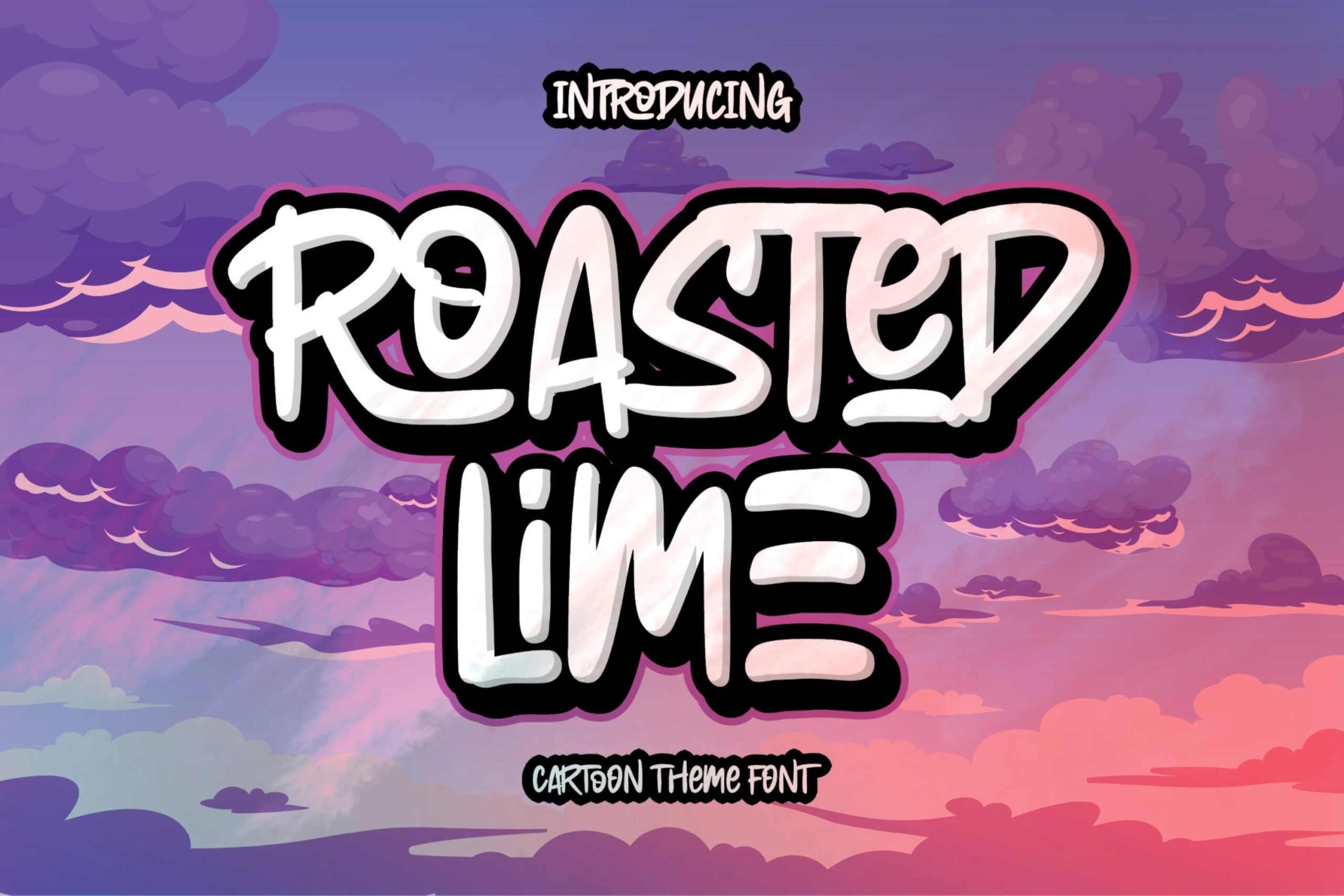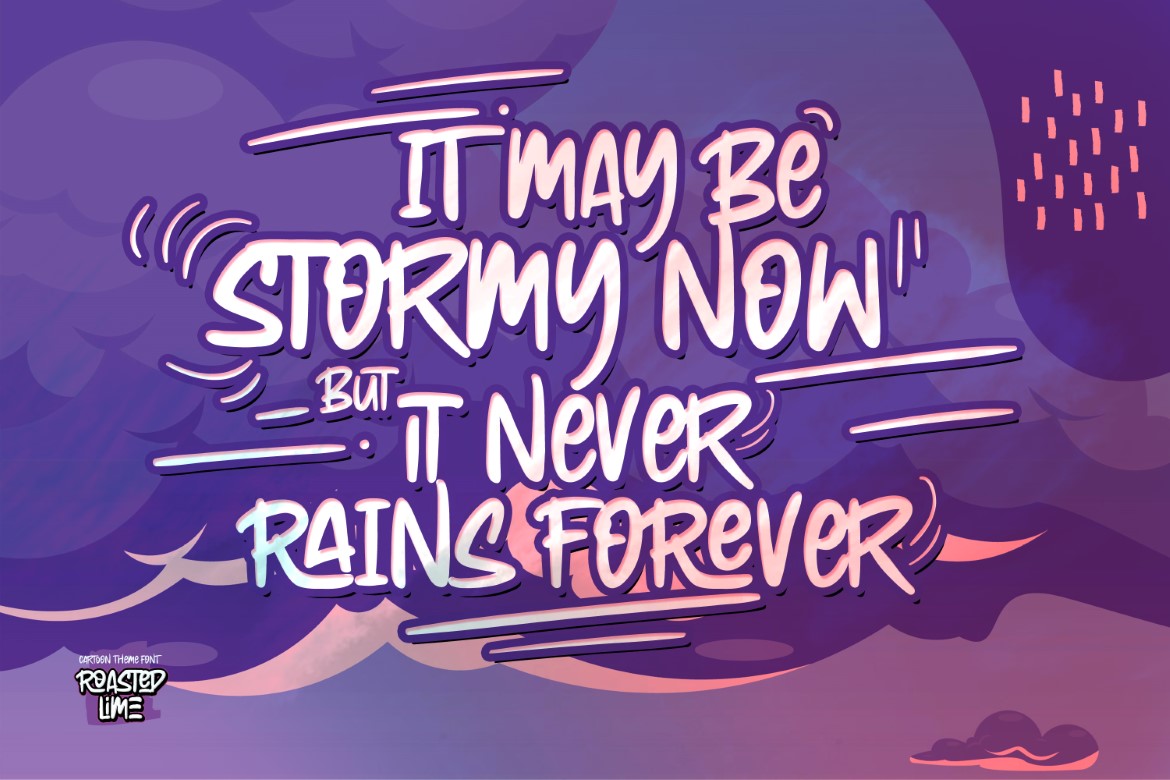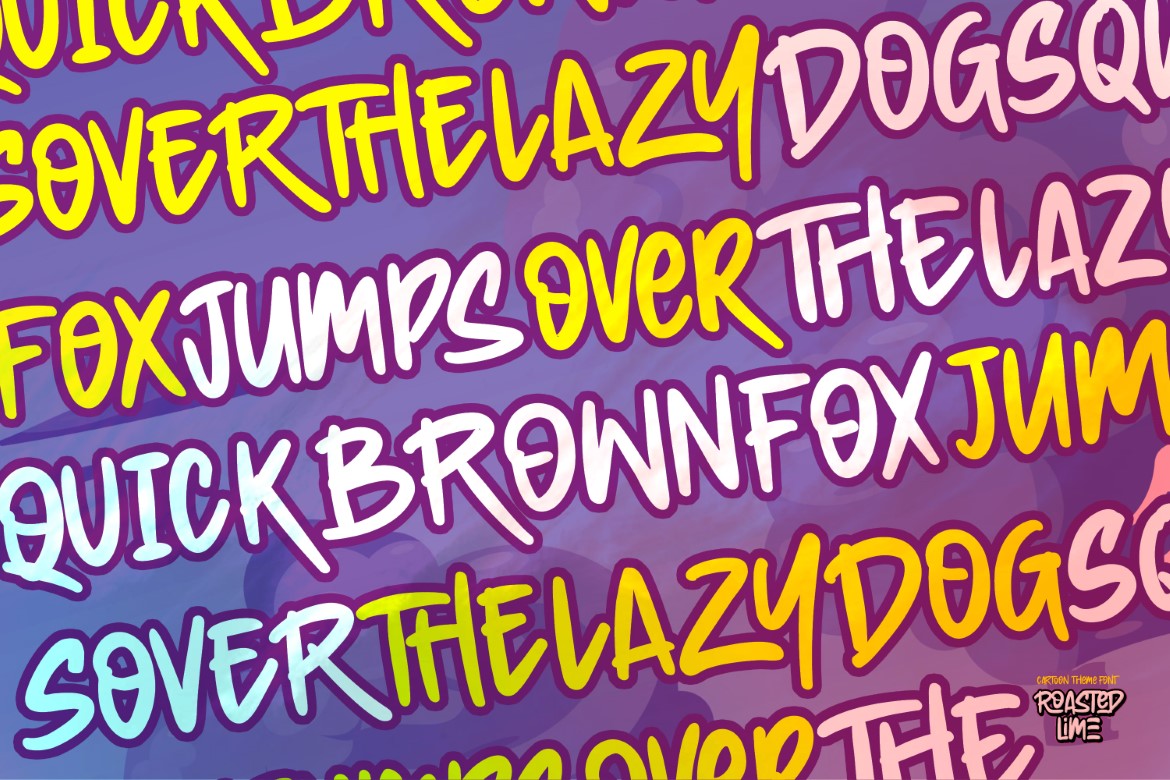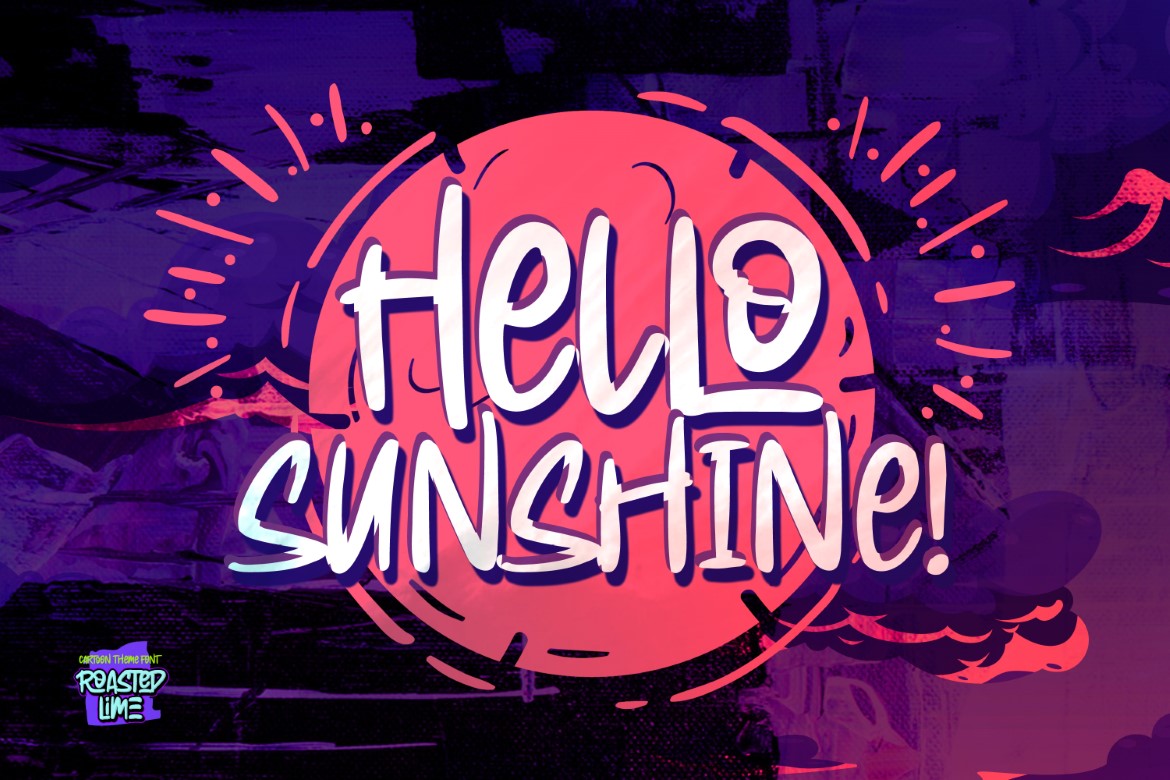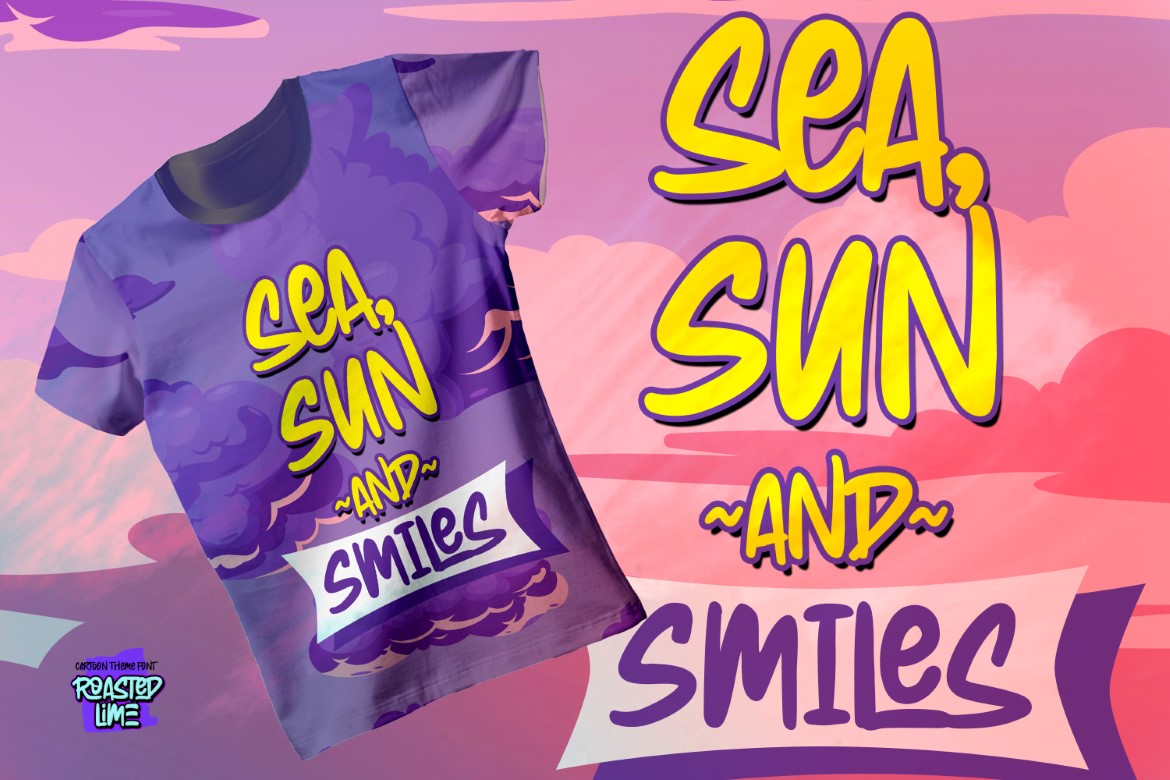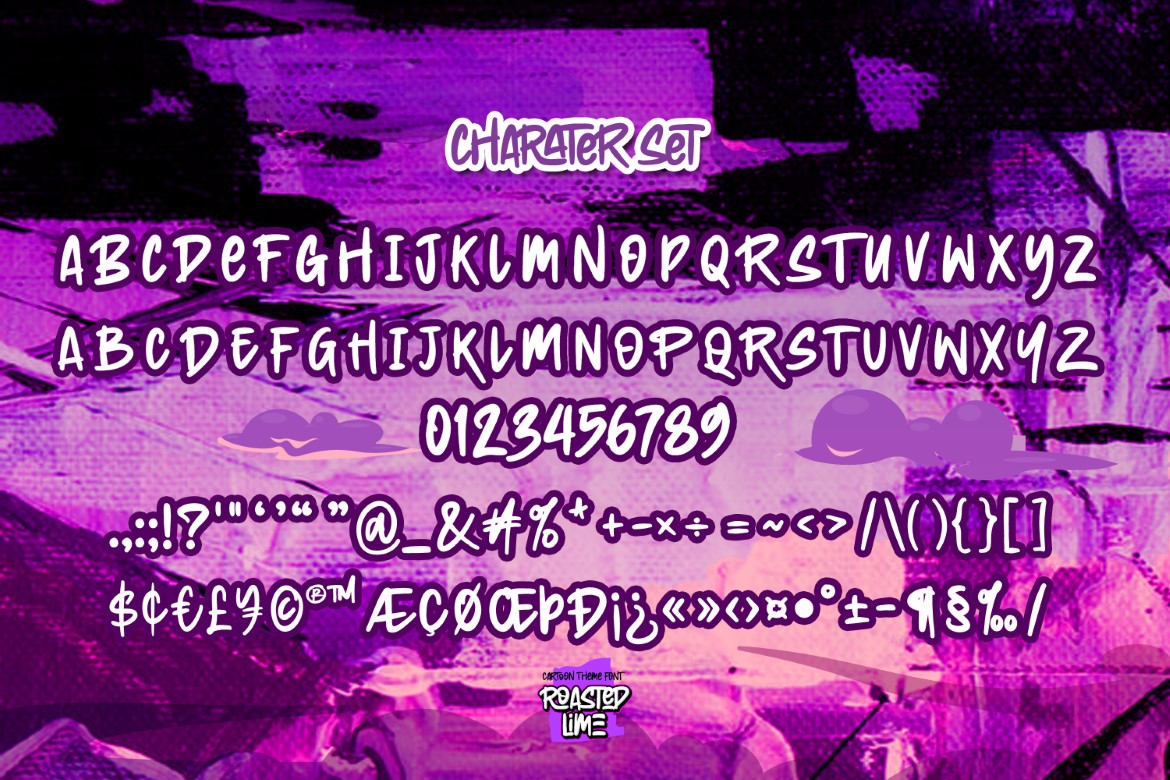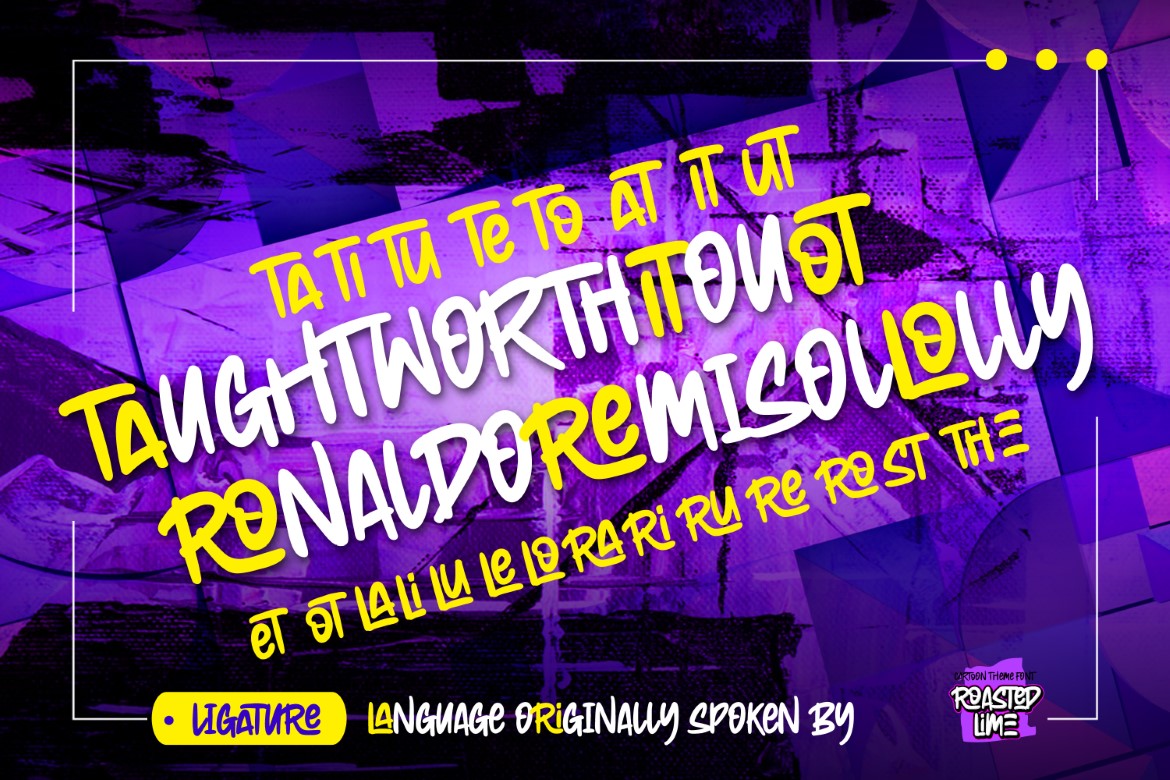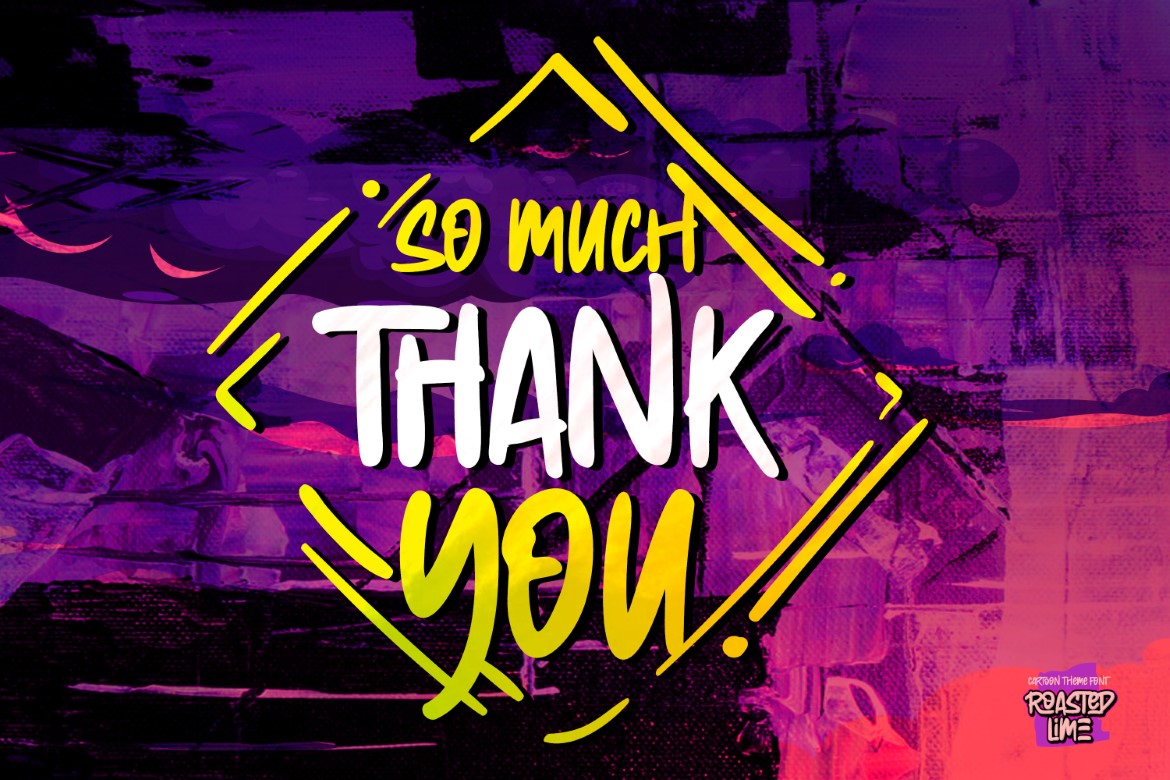
Roasted Lime – Cartoon Theme Display Font is a Modern Font that is written casually and quickly.
That is why Roasted Lime has a authentic, and unique characteristic more natural look. You can activate Ligatures and Alternates glyphs OpenType panel.
Roasted Lime Perfect for cartoon designs, branding projects, Logo design,Quotes product packaging and another Project that strong require font.